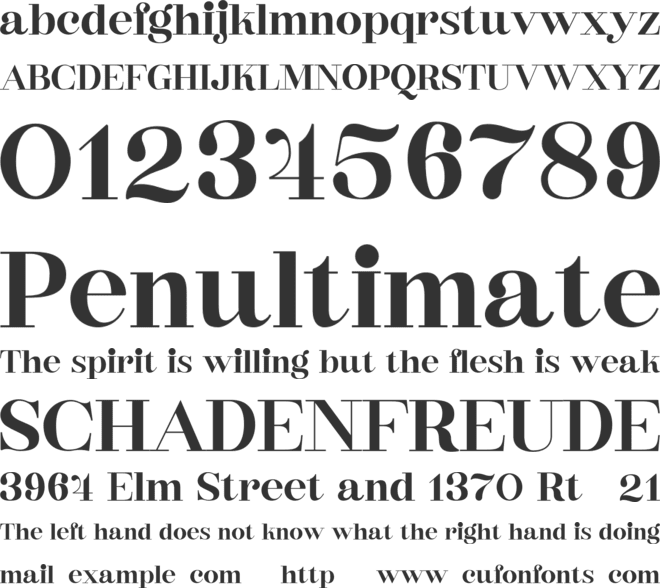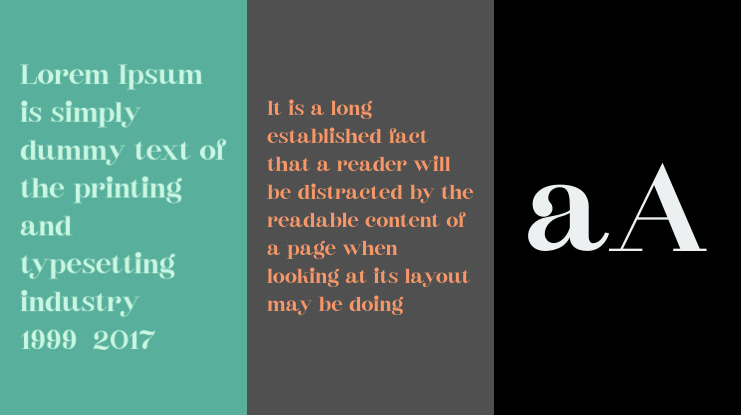
Rockdale Font
Wahyu Rahmawan
Rockdale is a luxurious serif font that is perfect for designing brands and logos. It has bold curves that will capture your attention while maintaining a modern and sophisticated look. The best part is that you can download Rockdale for free! Don’t miss out on this opportunity to elevate your brand or logo design.
- 5 Weights
- Basic Latin A-Z and a-z
- Numerals & Punctuation
- Stylistic Ligatures and Alternate Glyphs
- Multilingual Support for ä ö ü Ä Ö Ü …